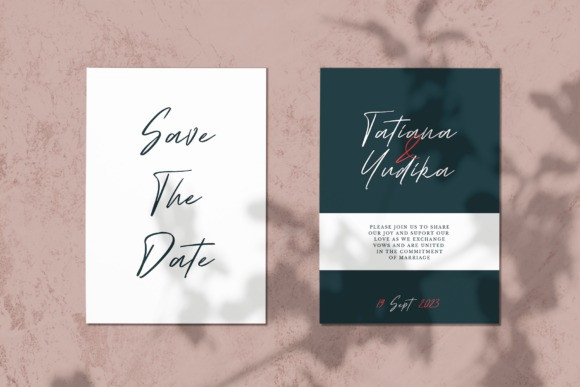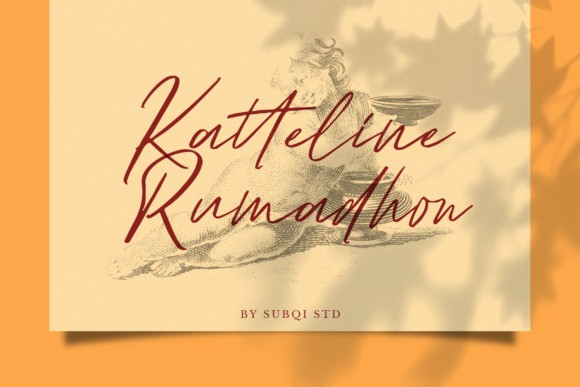
Katteline Rumadhon Font
It’s time to see our impressive font, Katteline Rumadhon is a cool and fun script with a unique style. Get inspired by its modern style.